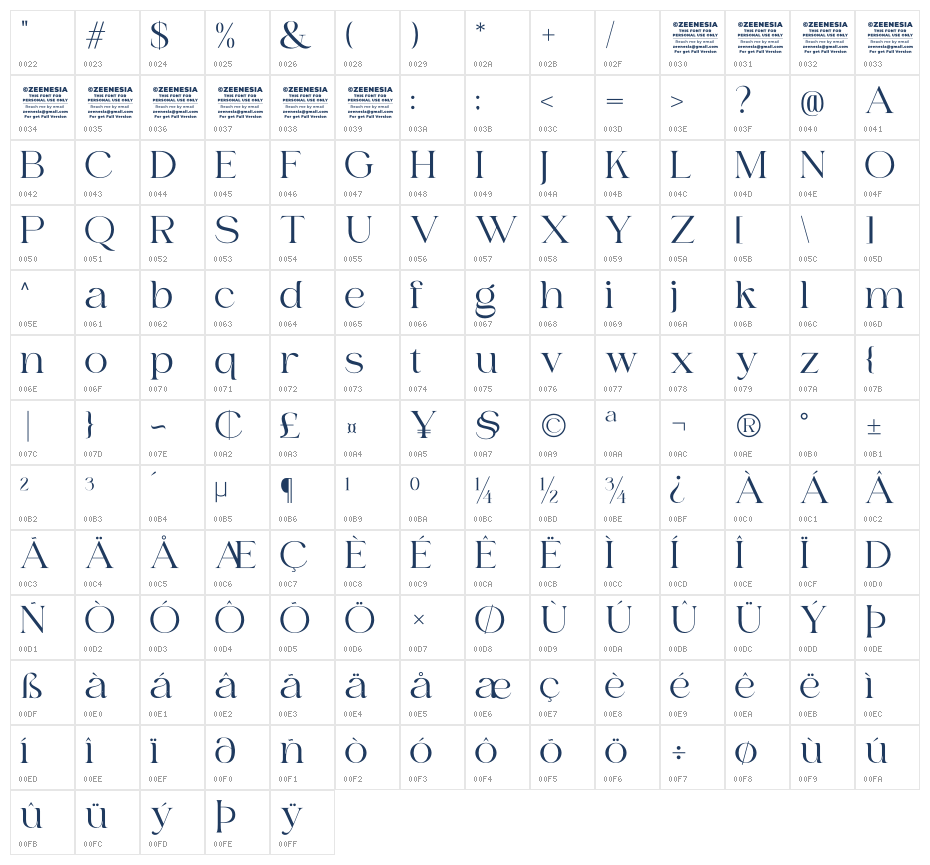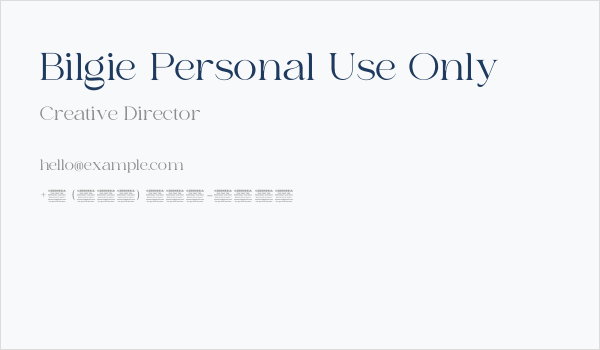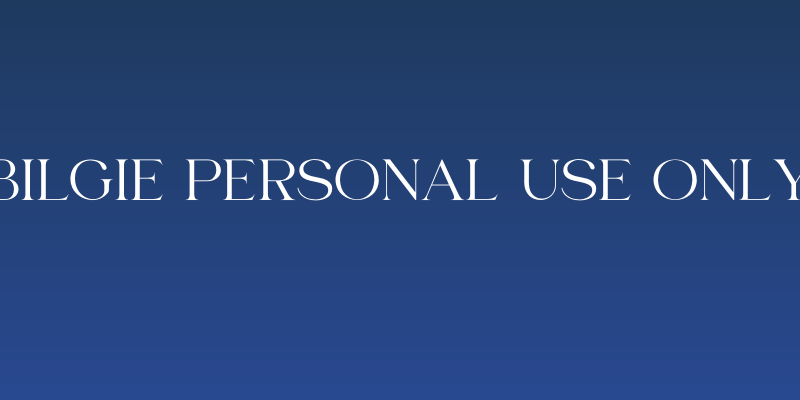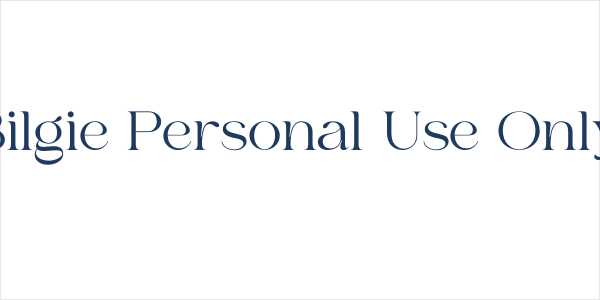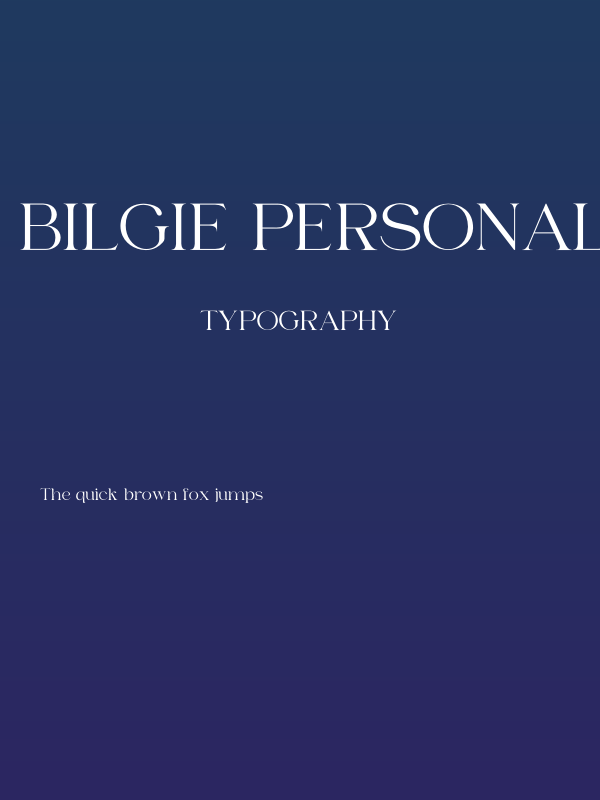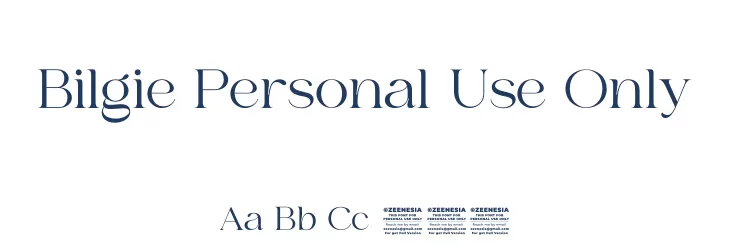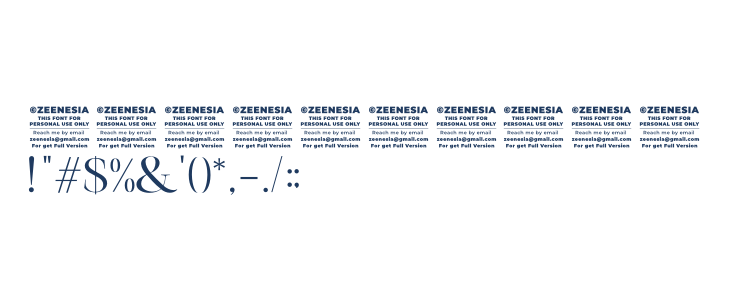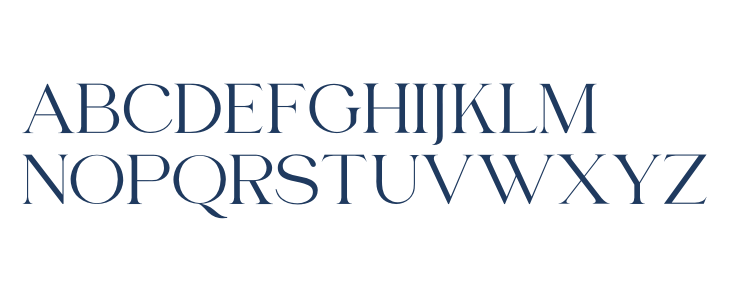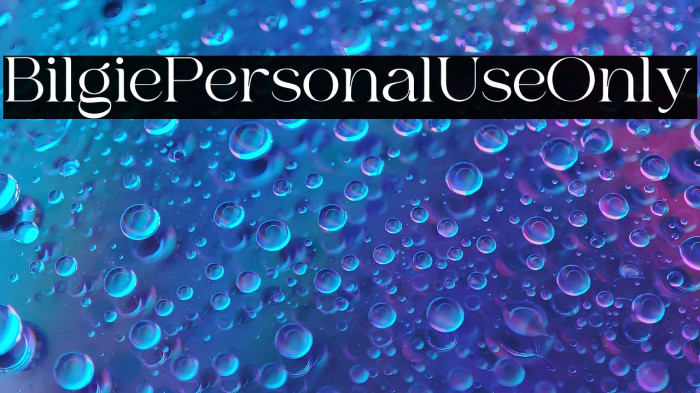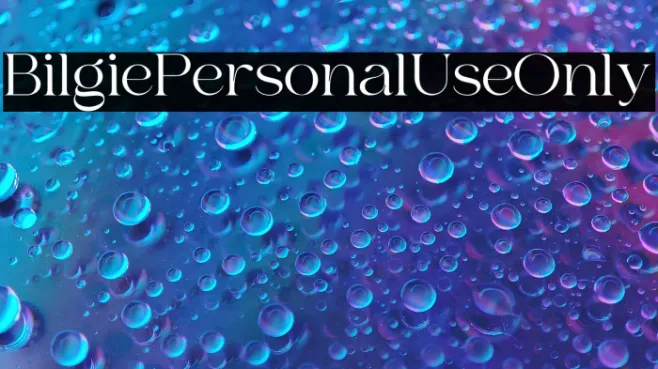
Bilgie Personal Use Only Font
Bilgie Personal Use Only Description
Elegant serif font with high contrast and refined details, featuring both uppercase and lowercase characters along with numerals and symbols.
| Overall Style | Elegant, Classic |